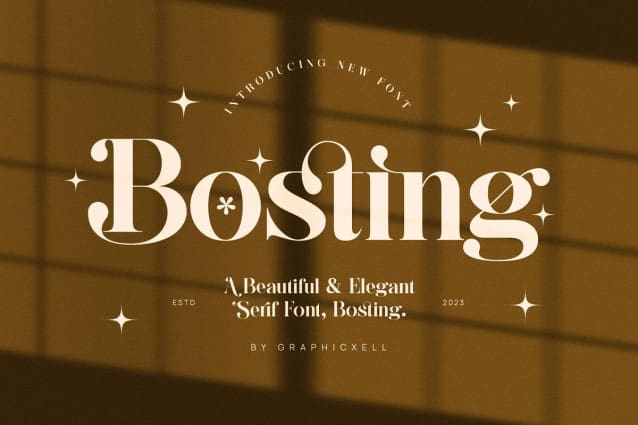
Bosting Font
Bosting Font is a unique and very elegant font for branding and logo designs Elegant serif typeface combined with a classy and modern style. This type of font is very suitable for your various needs such as branding projects, logos, wedding designs, social media posts, advertisements, product packaging, product designs, labels, photography, watermarks, invitations, stationery, and any project, created with high level of readability. you will not be disappointed if you buy this font!!